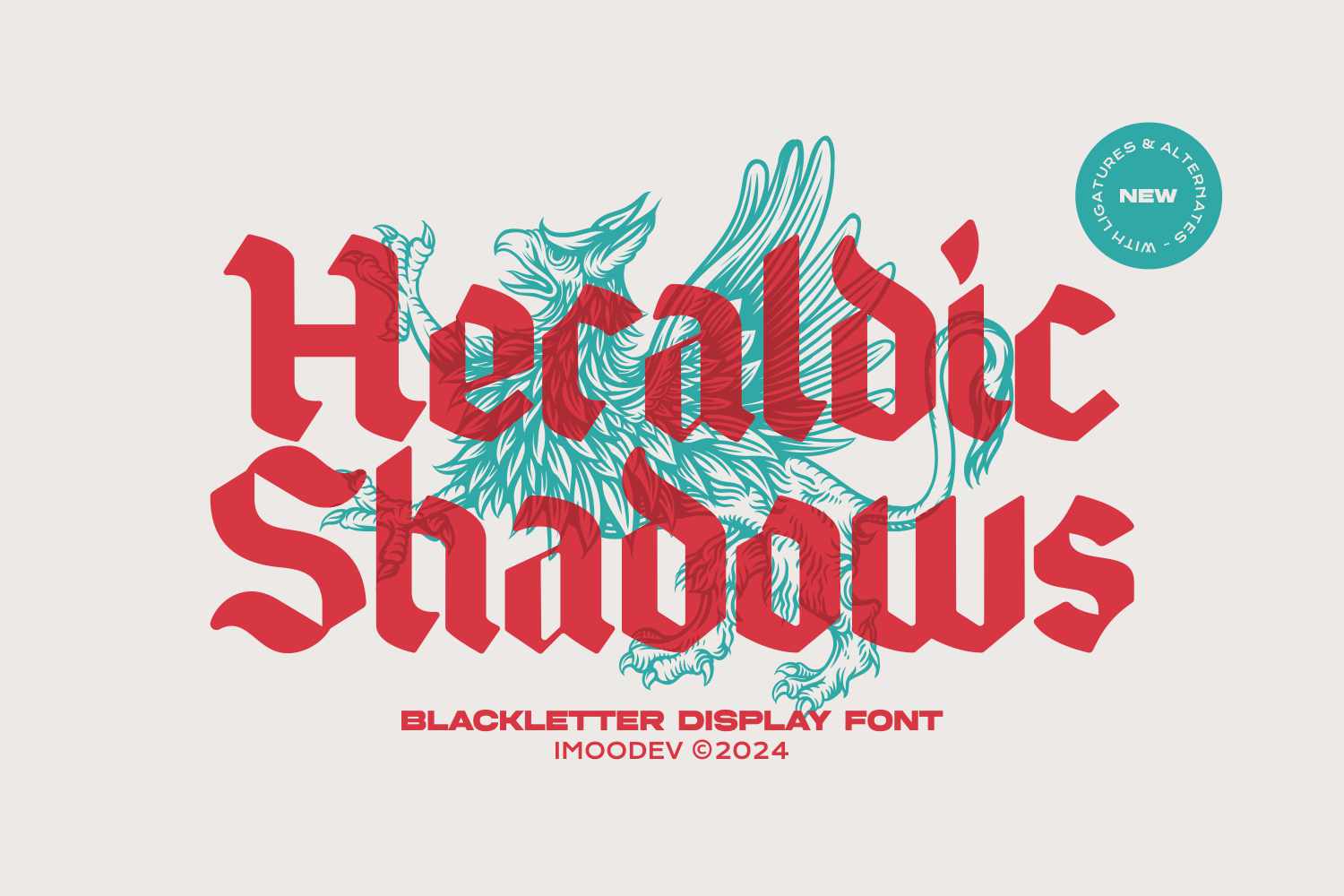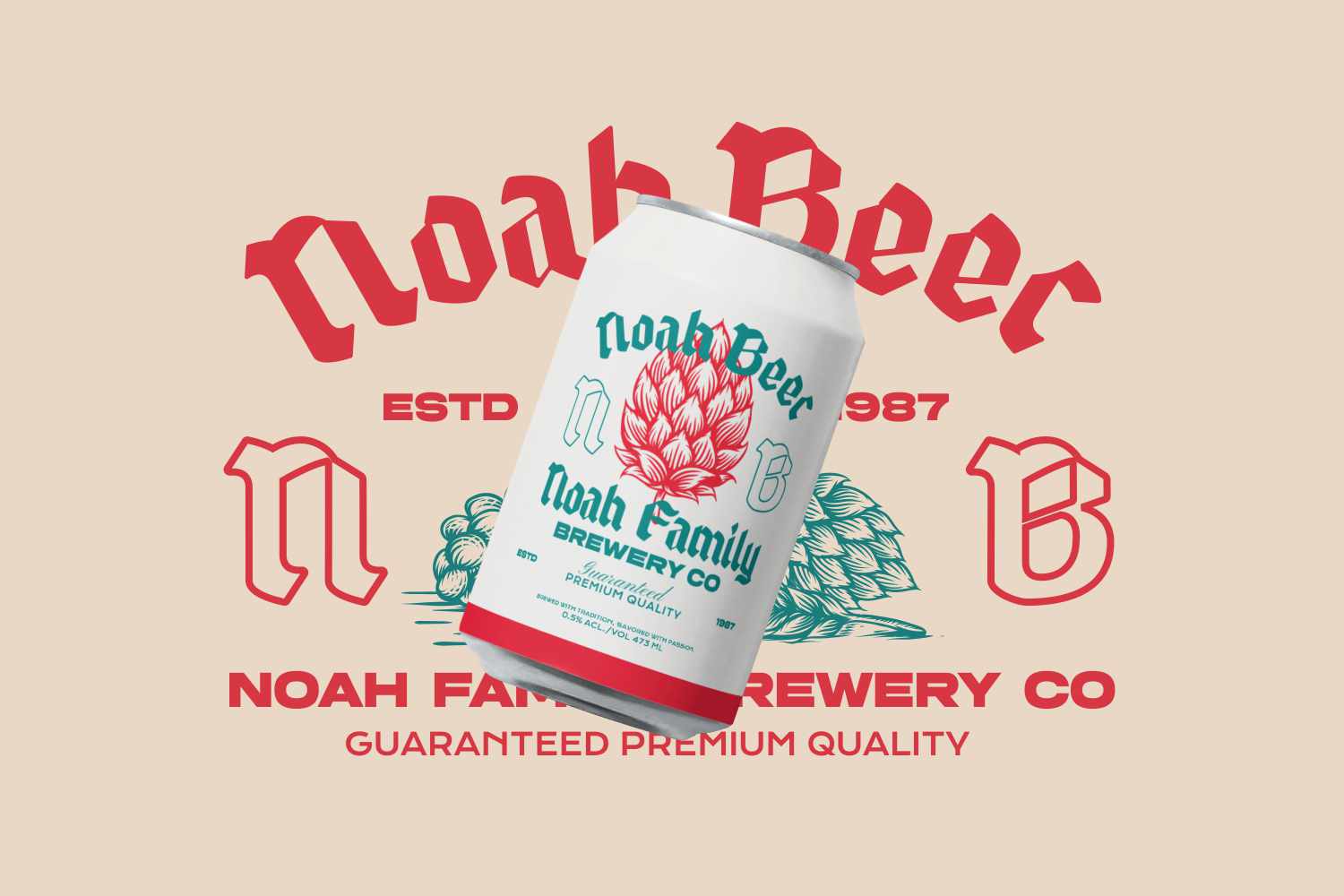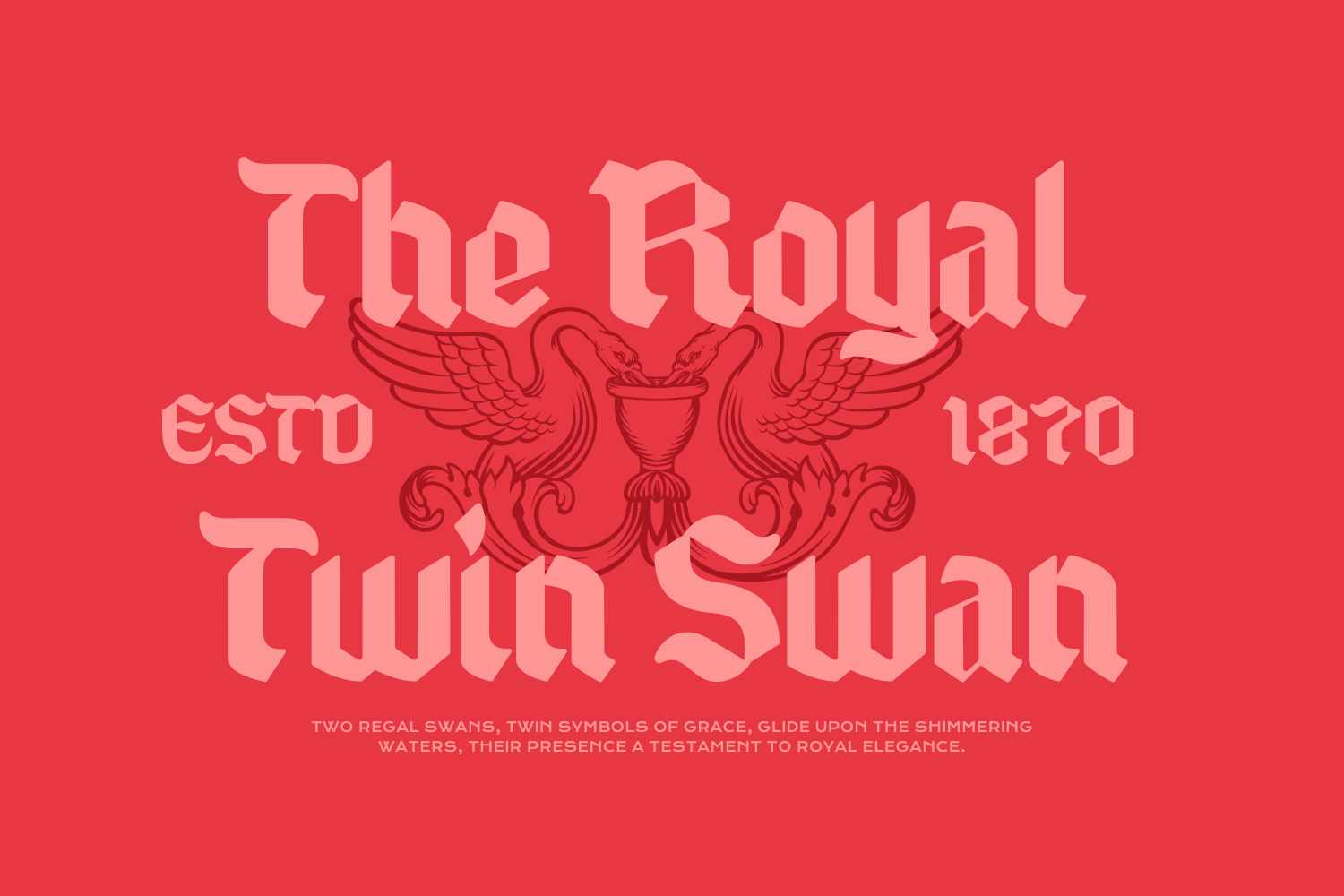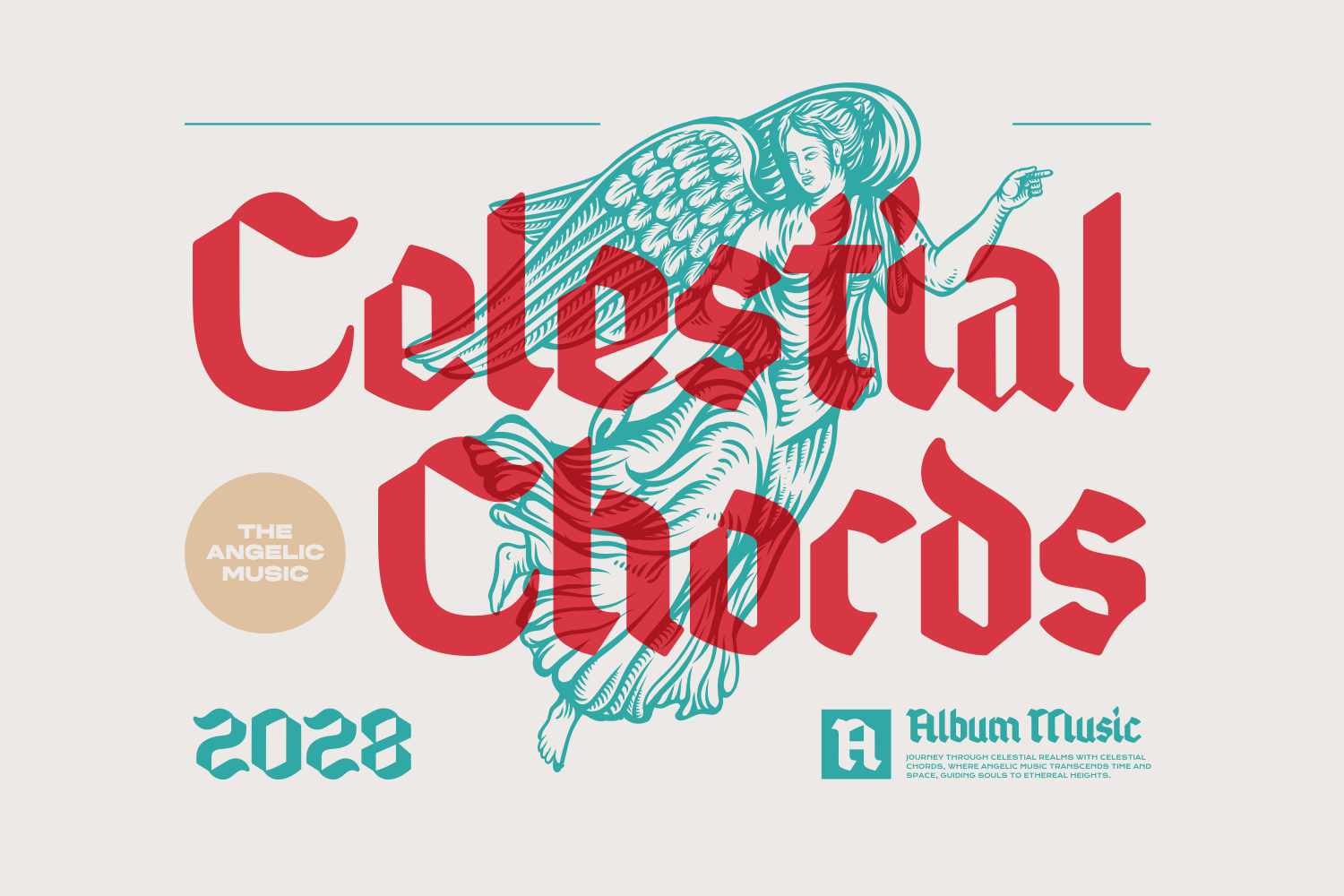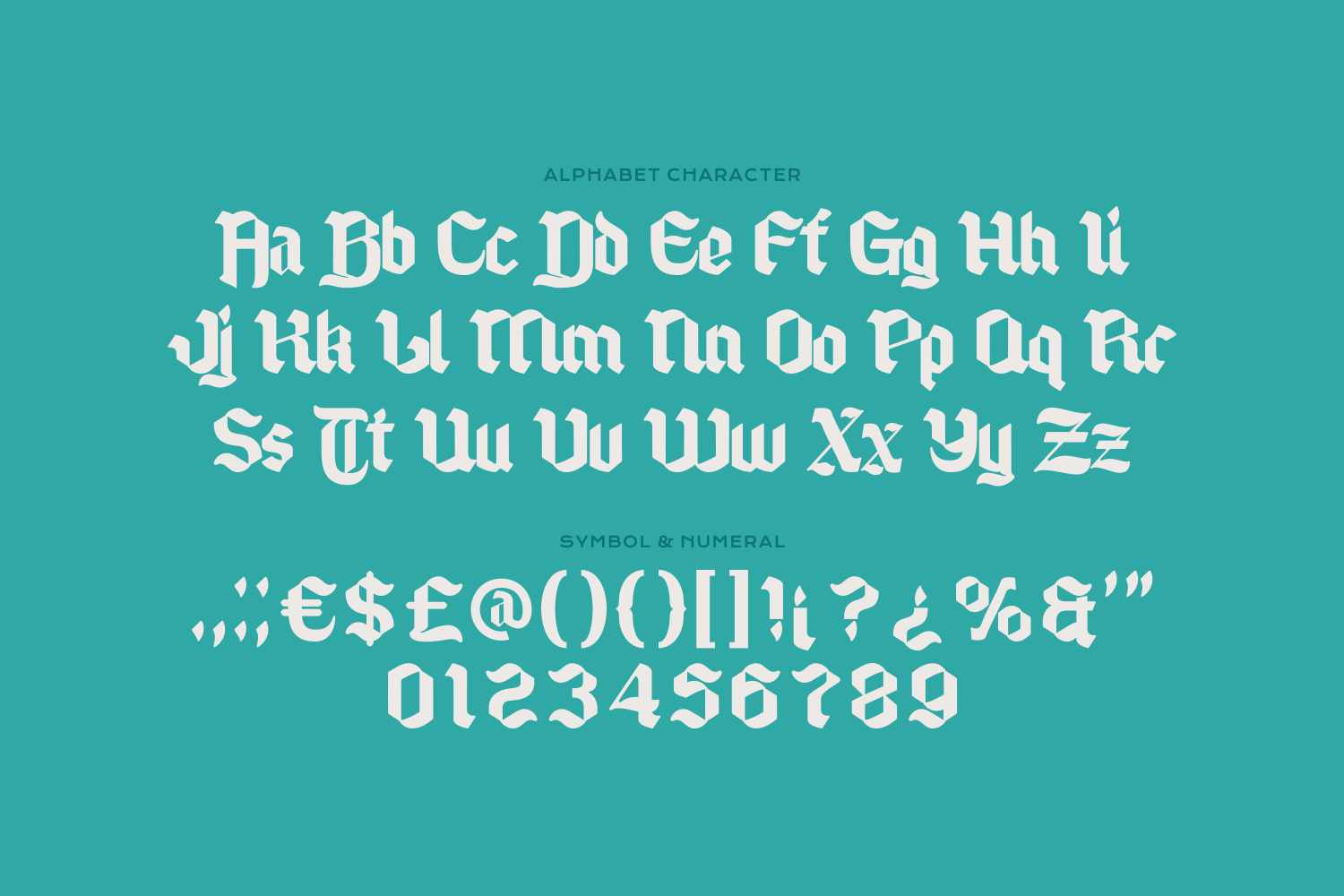
Heraldic Shadows is a bold blackletter display font that blends medieval charm with modern versatility. Its sharp edges, strong strokes, and elegant curves evoke the grandeur of old manuscripts while remaining highly readable. Perfect for branding that seeks a touch of tradition, this font adds a sense of authority and refinement to any design. Whether paired with intricate illustrations or used on its own, Heraldic Shadows delivers a striking visual impact.
With its alternates and ligatures, Heraldic Shadows offers endless customization for logos, packaging, posters, beer labels, and editorial headlines. Its Gothic-inspired style makes it ideal for projects that want to communicate heritage, artistry, and strength. From royal crests to modern craft branding, this font ensures your text stands out with timeless elegance.